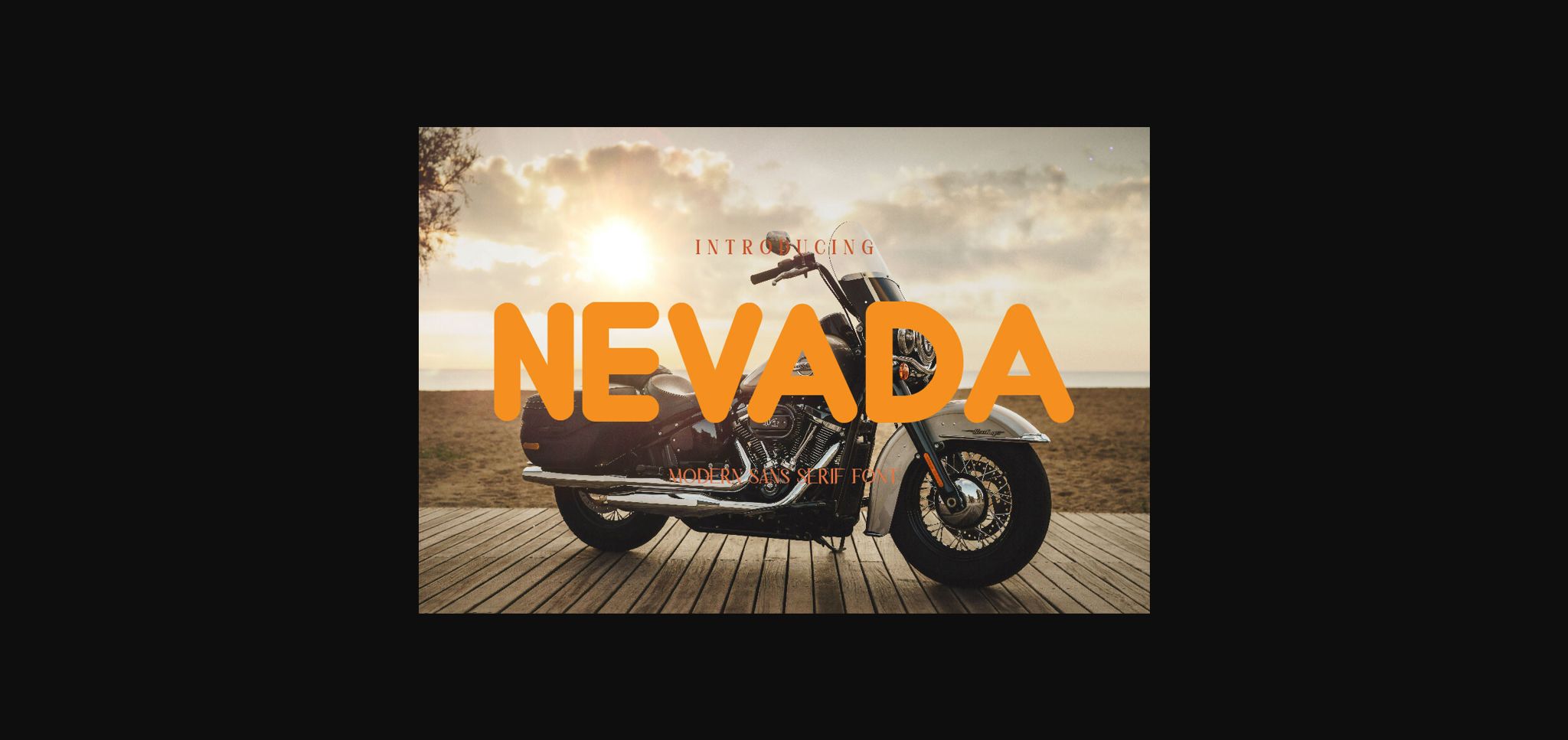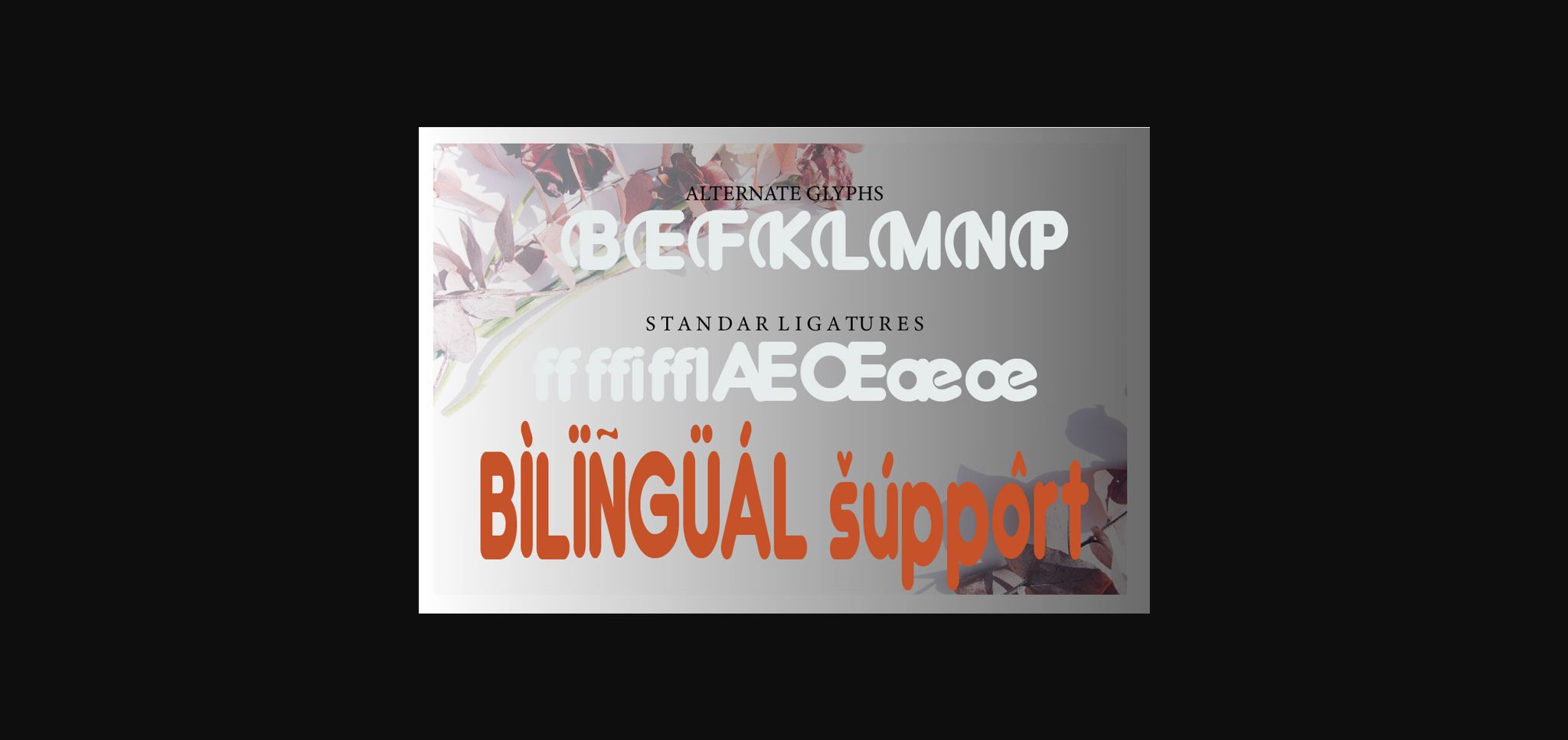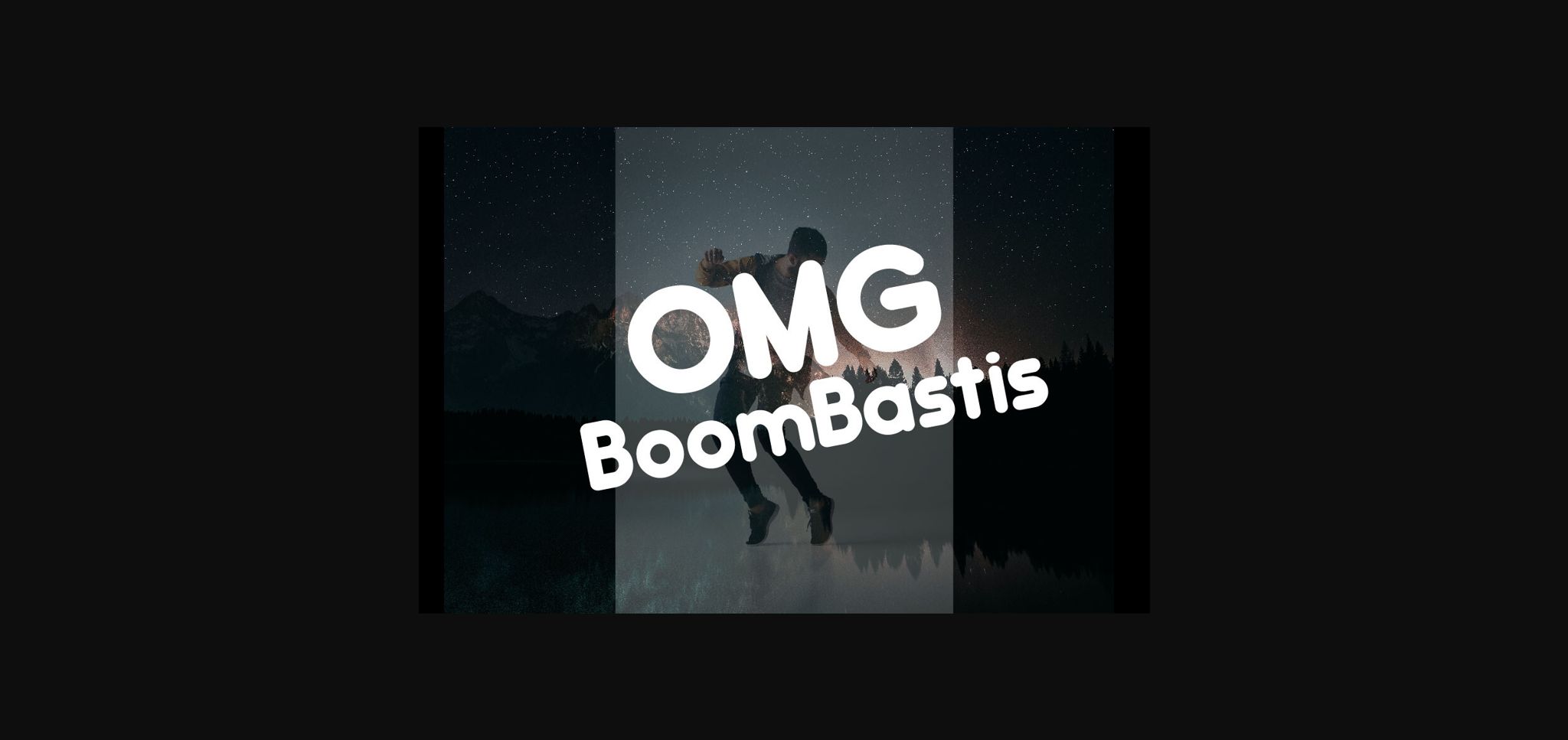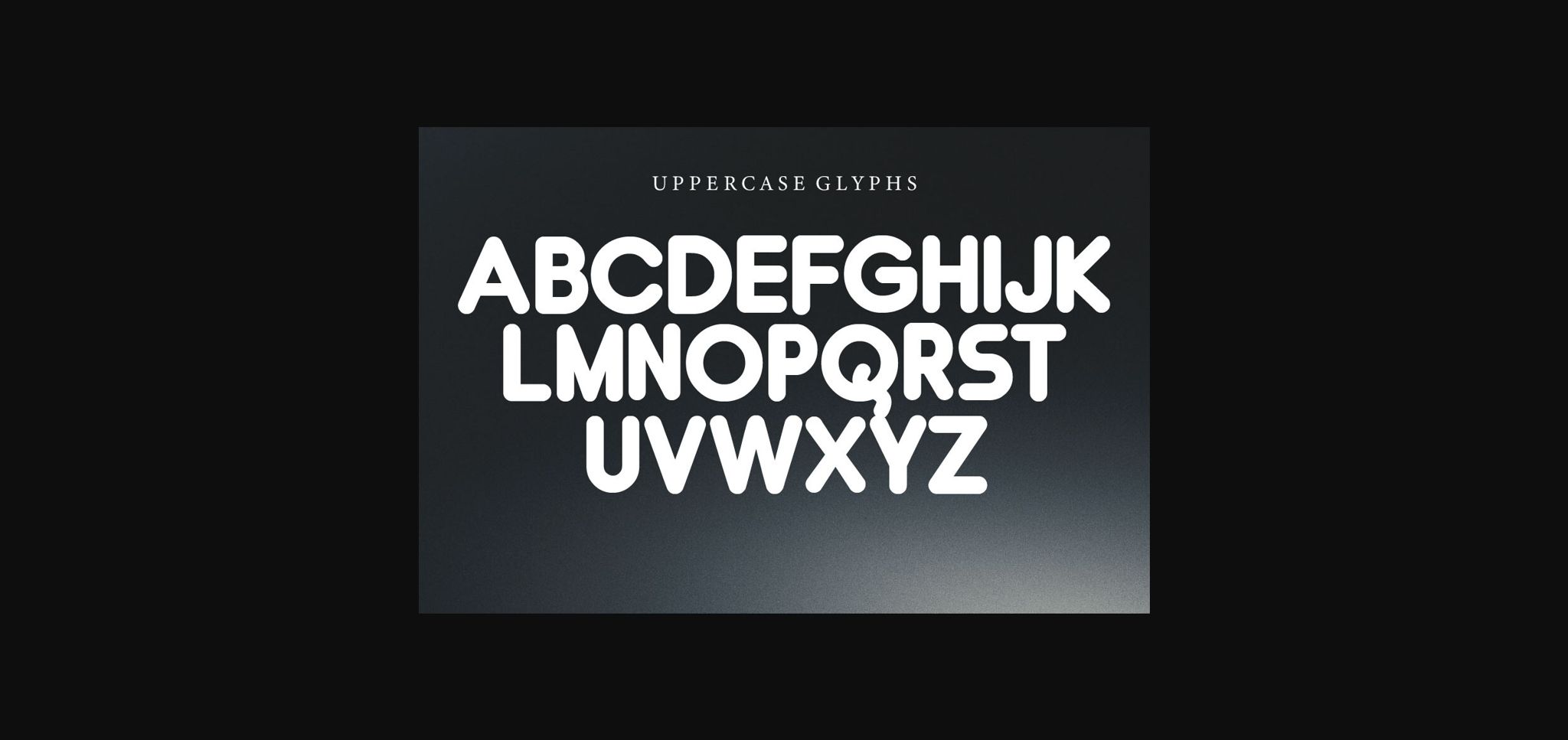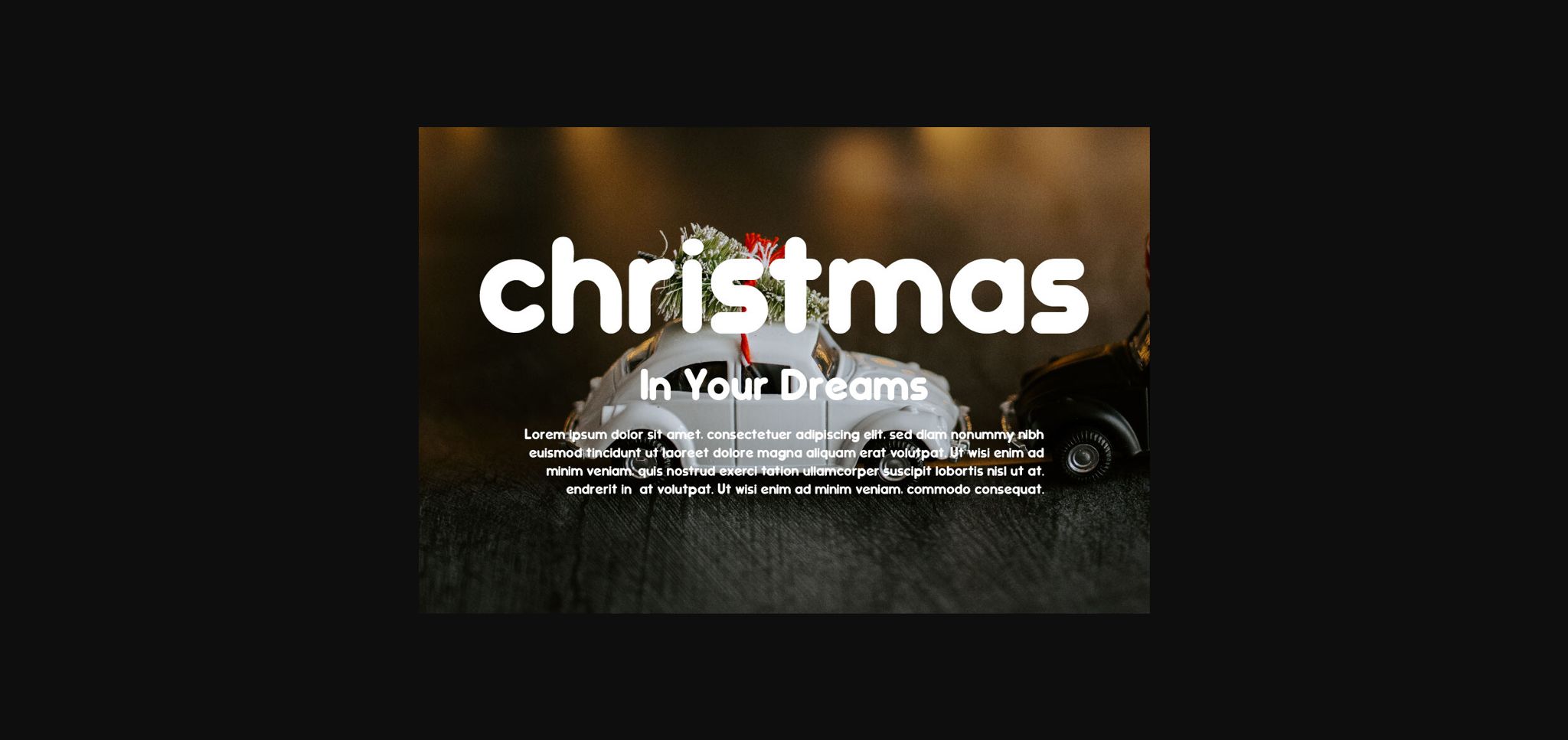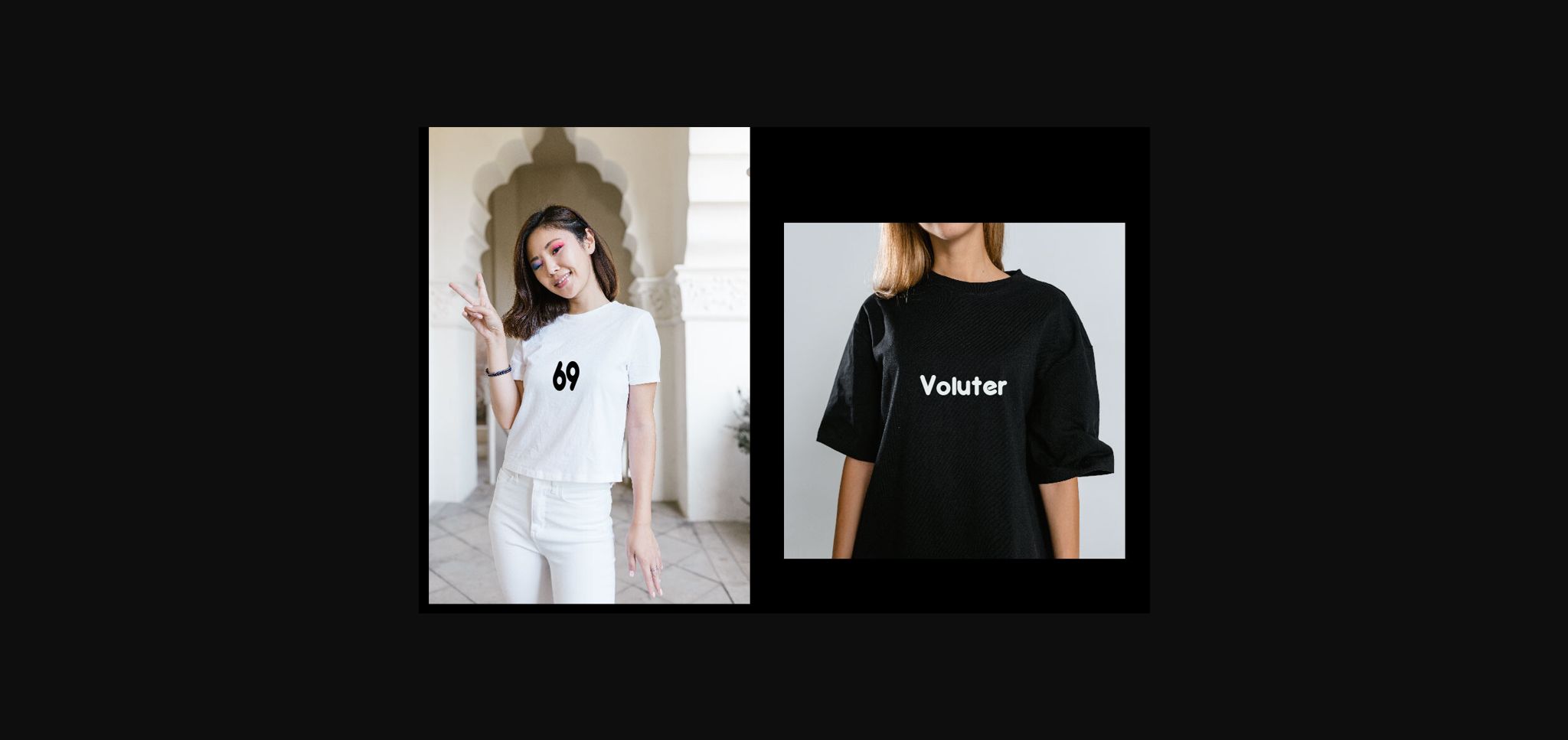
Nevada Font
About Nevada Font
Introduction Nevada, a modern sans serif font with old style, best used as a display for headings, logos, branding, magazines, product packaging, text document, brochures, social media post and invitations project. Nevada comes with clean lines and smooth curves giving any project an extra touch of class.